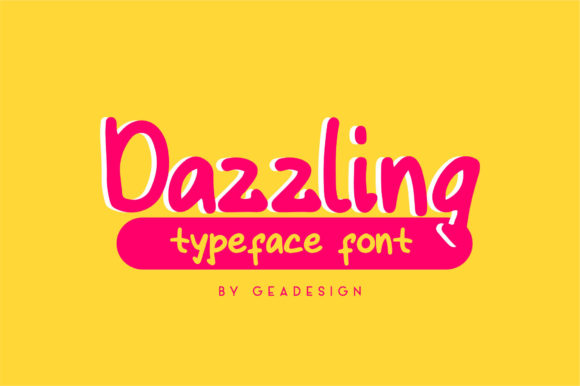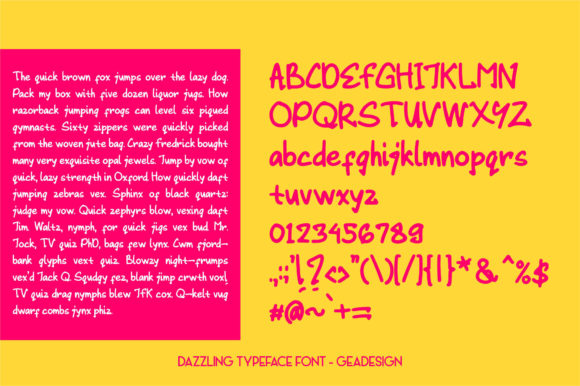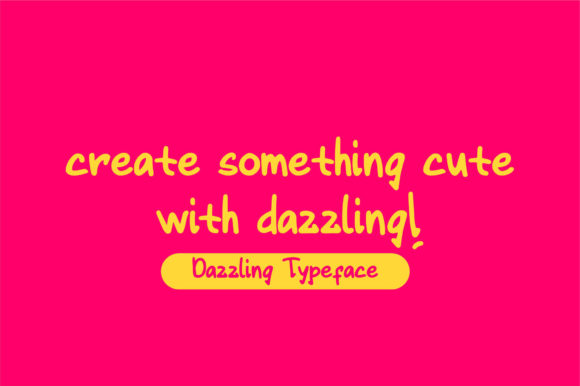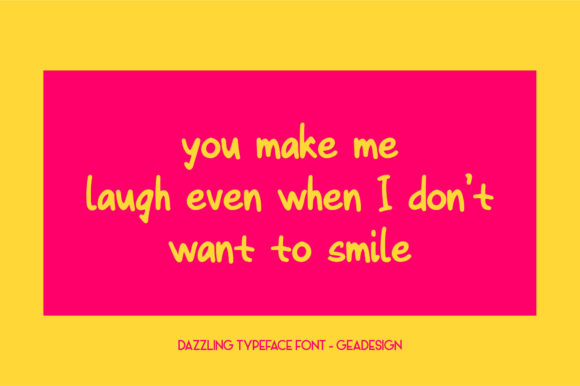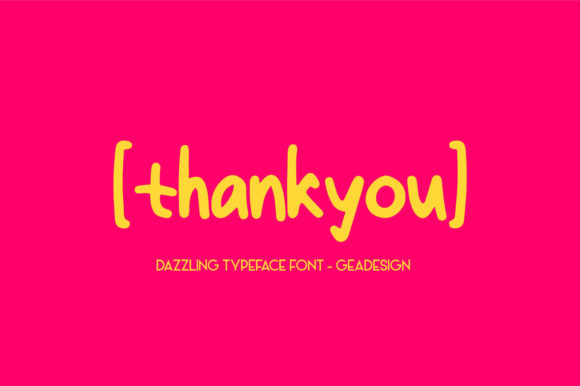
Dazzling Font
About Dazzling Font
Dazzling is a unique typeface font with a fresh take on a timeless design. It’s unique feel will turn any project into a true stand-out.